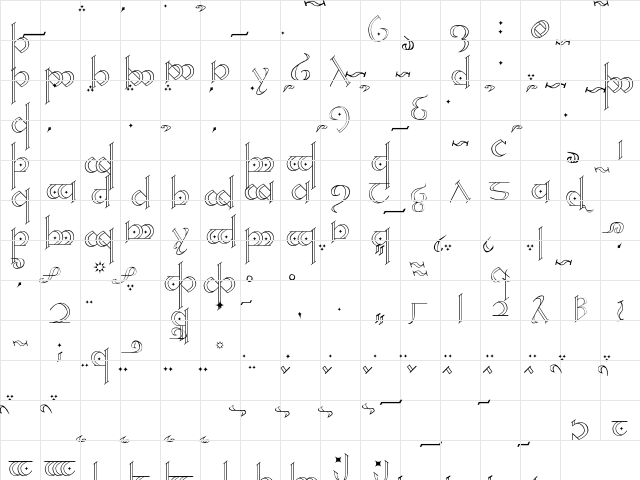
Tengwar Galvorn Regular
Design Context for Tengwar Galvorn Typeface
Tengwar Galvorn takes a measured approach to typography — its balanced proportions and neutral character make it a reliable workhorse for both digital and print work.